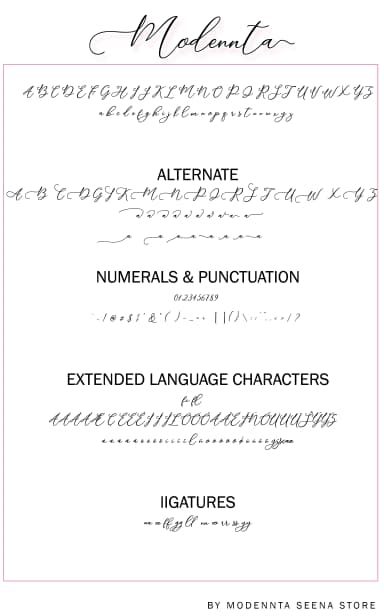
Modennta Script Font by modennta is an elegant handwritten script designed for sophisticated branding and formal occasions. The font's flowing letterforms and legible construction make it versatile across both digital and print mediums, from initial concepts to finished products. Its distinctive character makes it particularly suited for projects that demand a personal, premium touch without sacrificing readability.
This script font shines on wedding invitation suites where calligraphy appeal meets modern ease, transforming ordinary stationery into keepsake pieces. Event planners and design professionals rely on scripts like this for luxury packaging and labels on boutique cosmetics, artisanal soaps, and specialty goods. Custom wedding monograms, restaurant menus, and upscale business cards all benefit from the font's graceful presentation. The font's structure also works well for certificate designs, thank-you cards, and personalized gift labeling where hand-crafted authenticity matters.
- Elegant, Flowing, Modennta Script
Modennta Script Font is a script font that shines as a display or heading face. Pair it with a clean sans-serif or serif font for body text β the contrast creates a clear hierarchy while the two styles stay balanced and easy to read.
Modennta Script Font